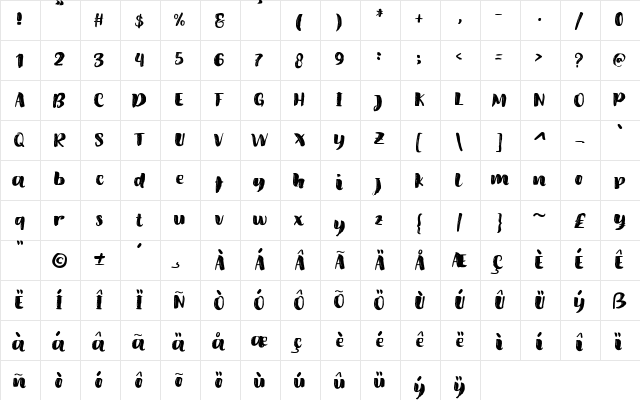
Amel Brush Font Regular
| Foundry | Debut Studio (Ari Fadli) |
| Designer | Debut Studio (Ari Fadli) |
Design Context for Amel Brush Font Typeface
Amel Brush Font brings a calligraphic fluidity to the page — its connecting strokes and expressive curves give it an unmistakably human quality.
Font Pairing: Combine Amel Brush Font with a simple geometric sans for maximum contrast — the tension between flowing curves and clean structure is a classic typographic pairing.